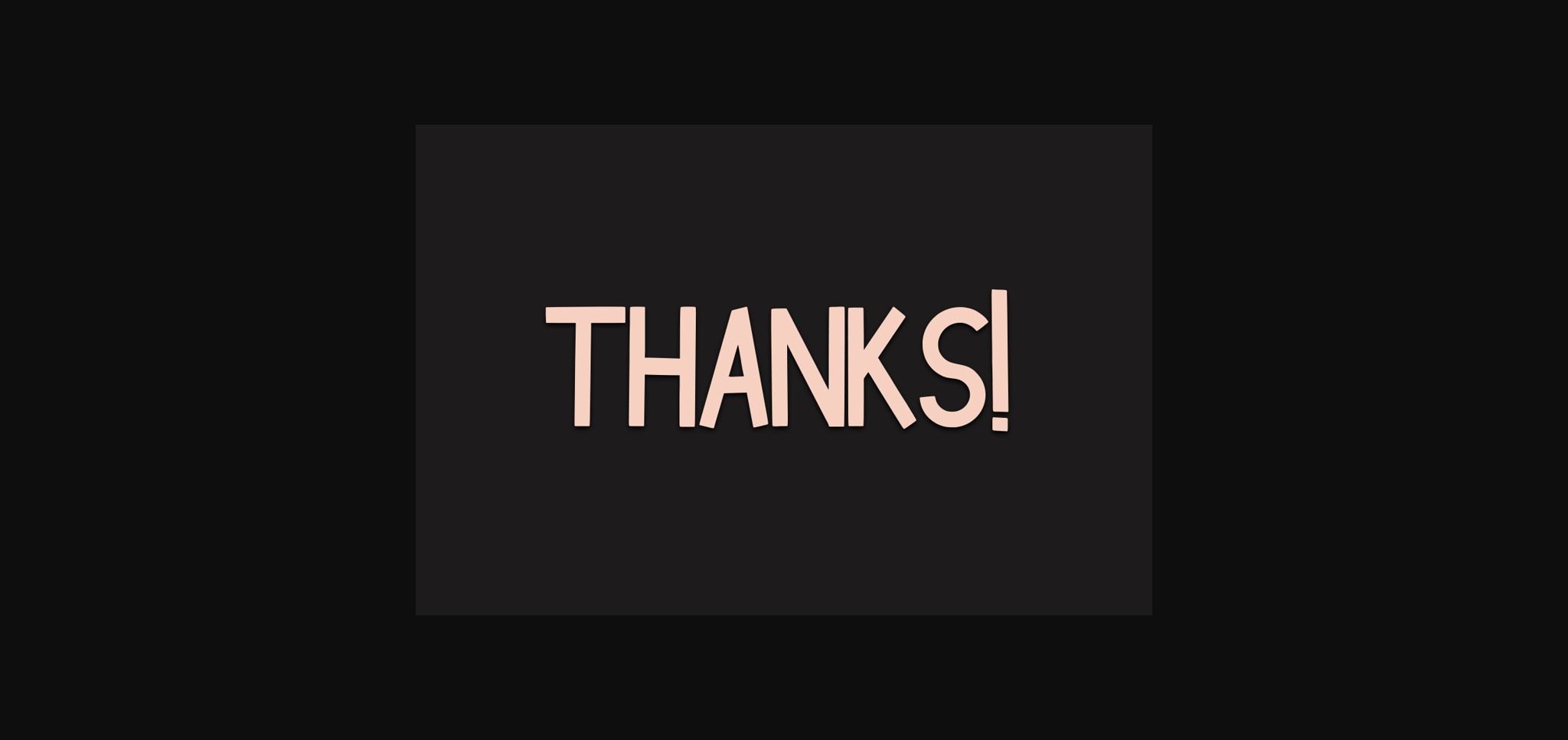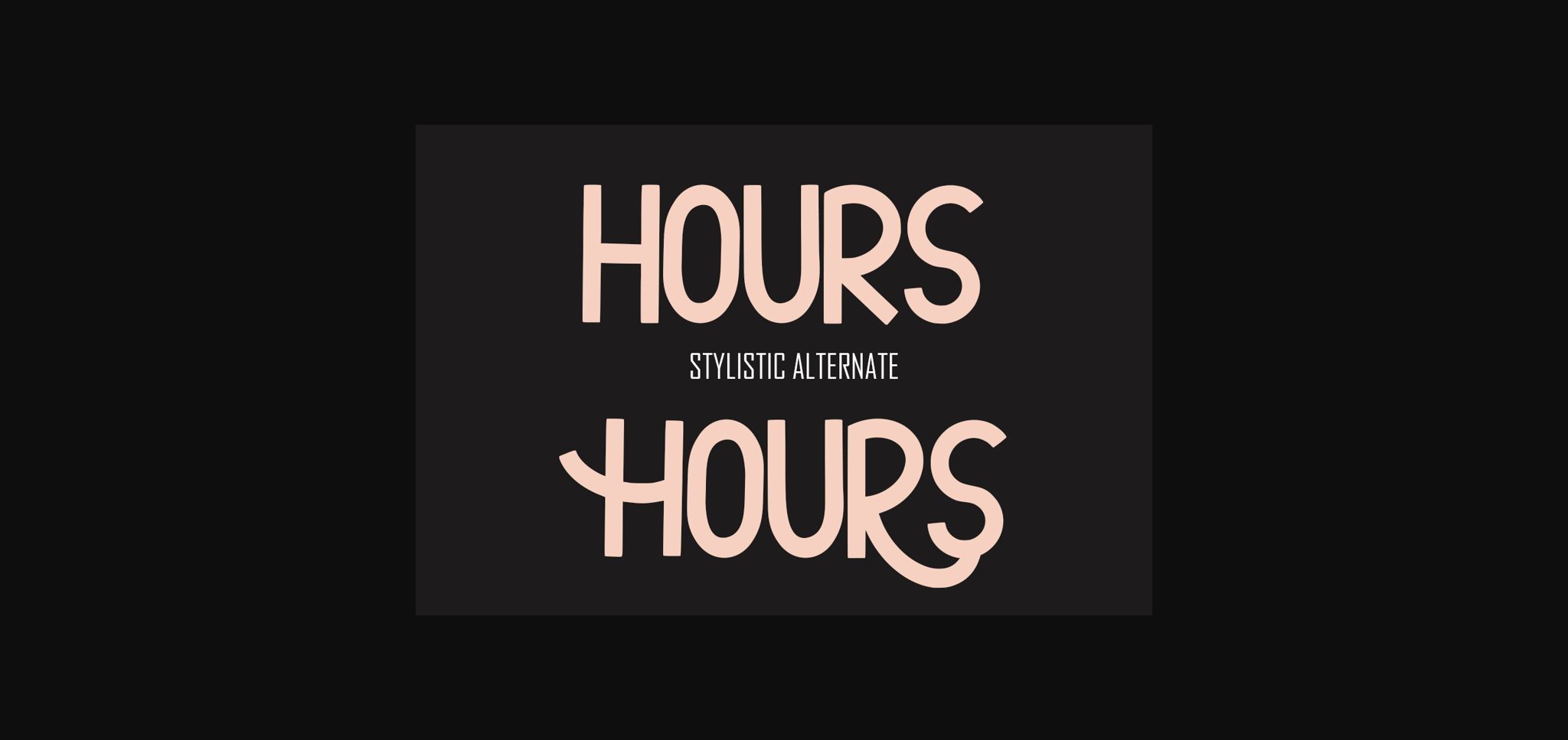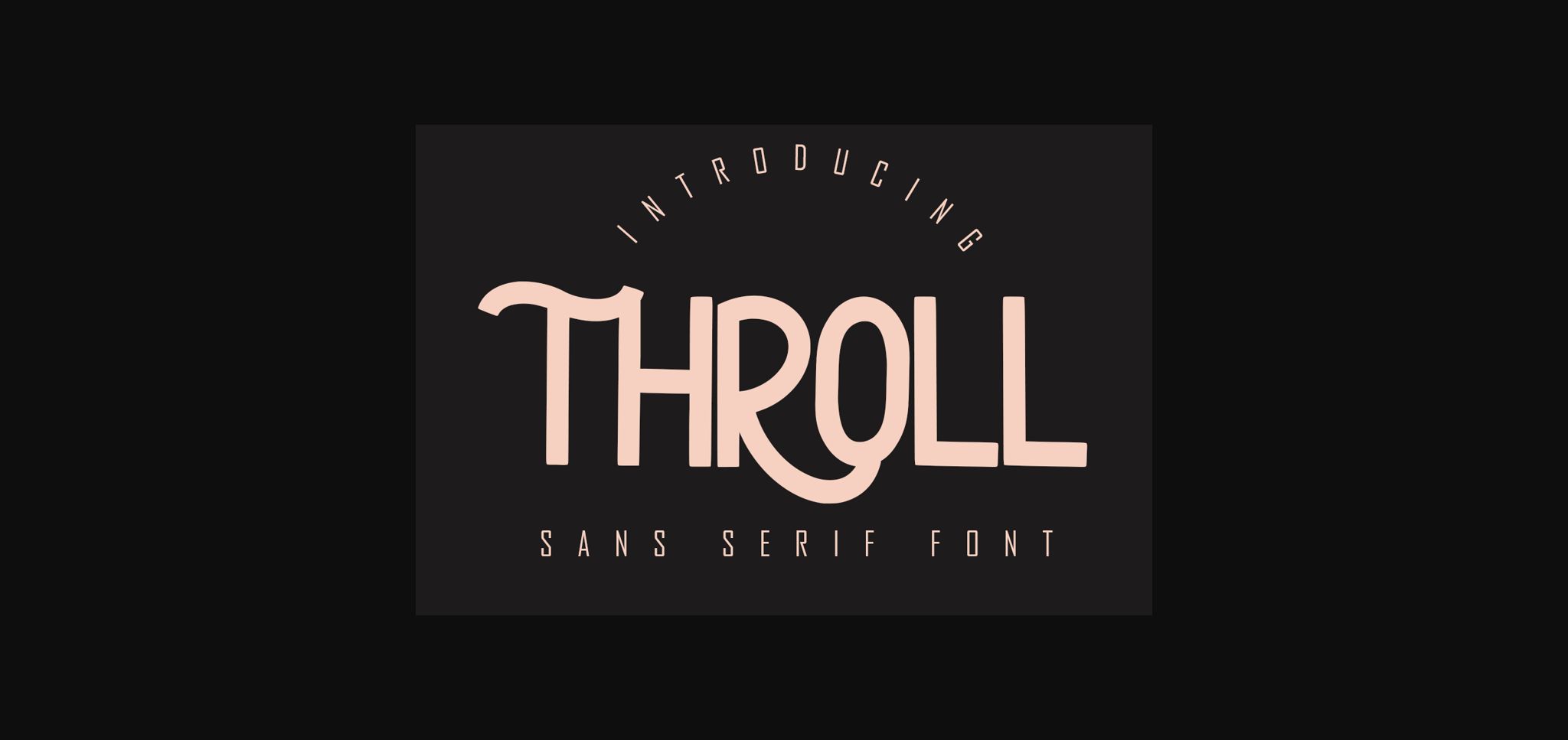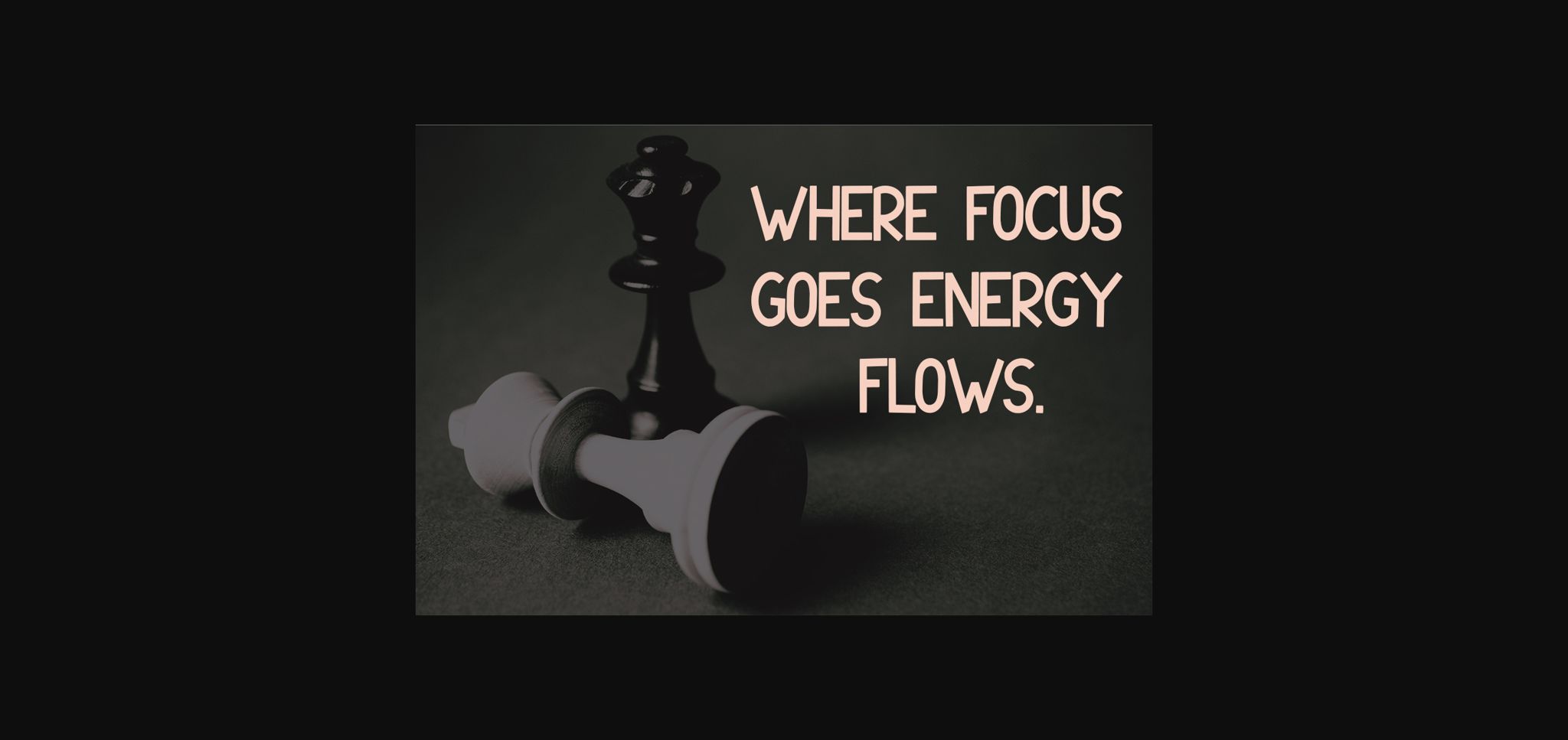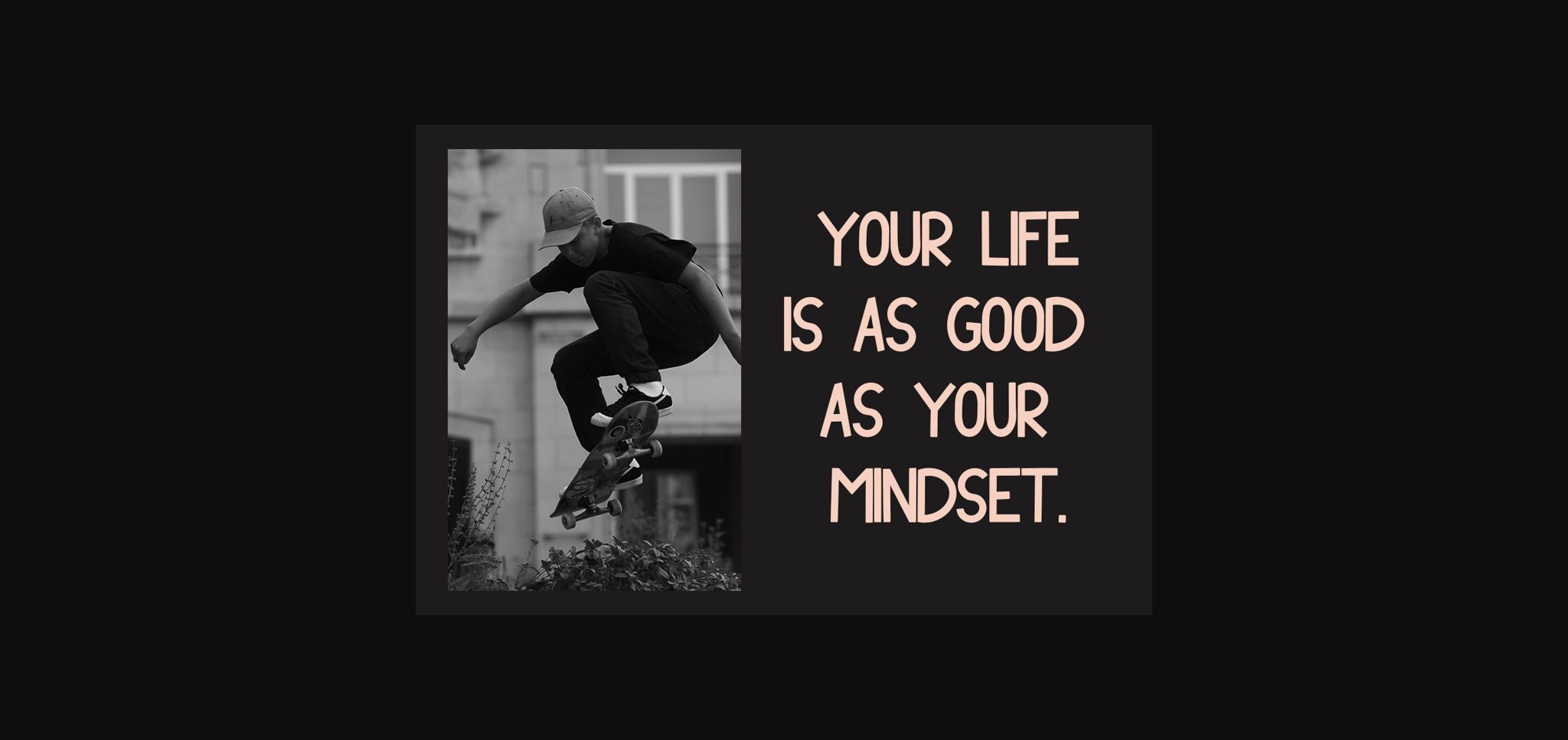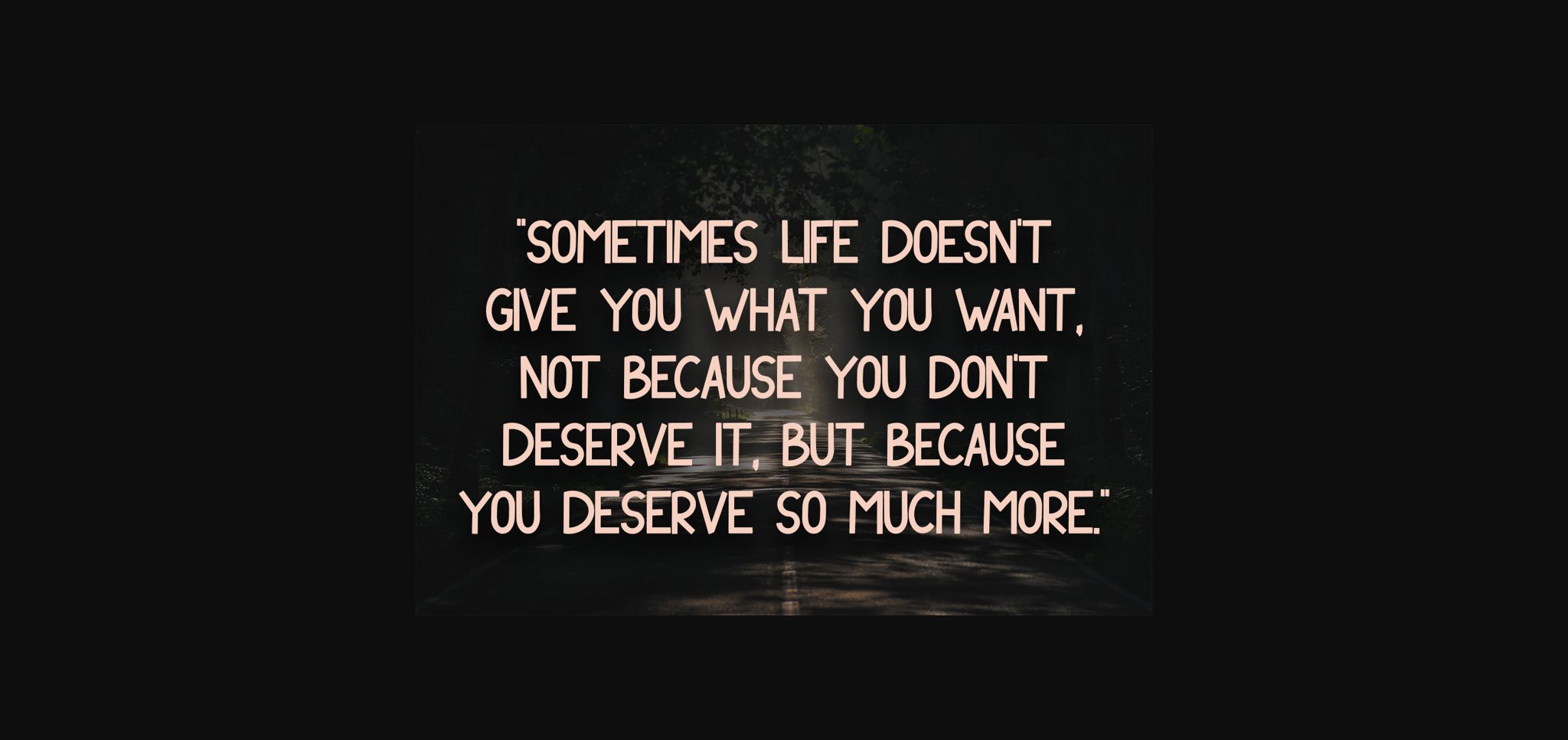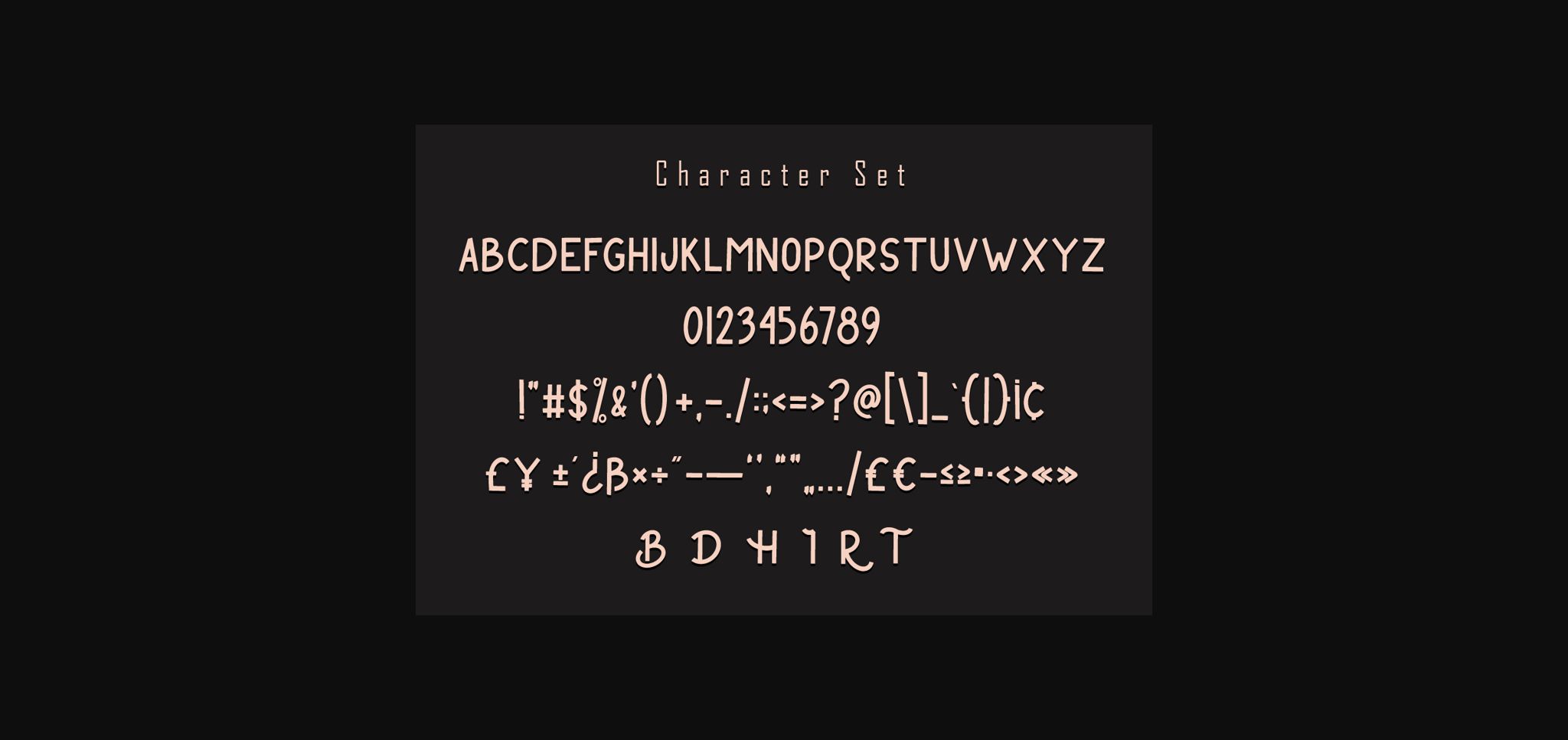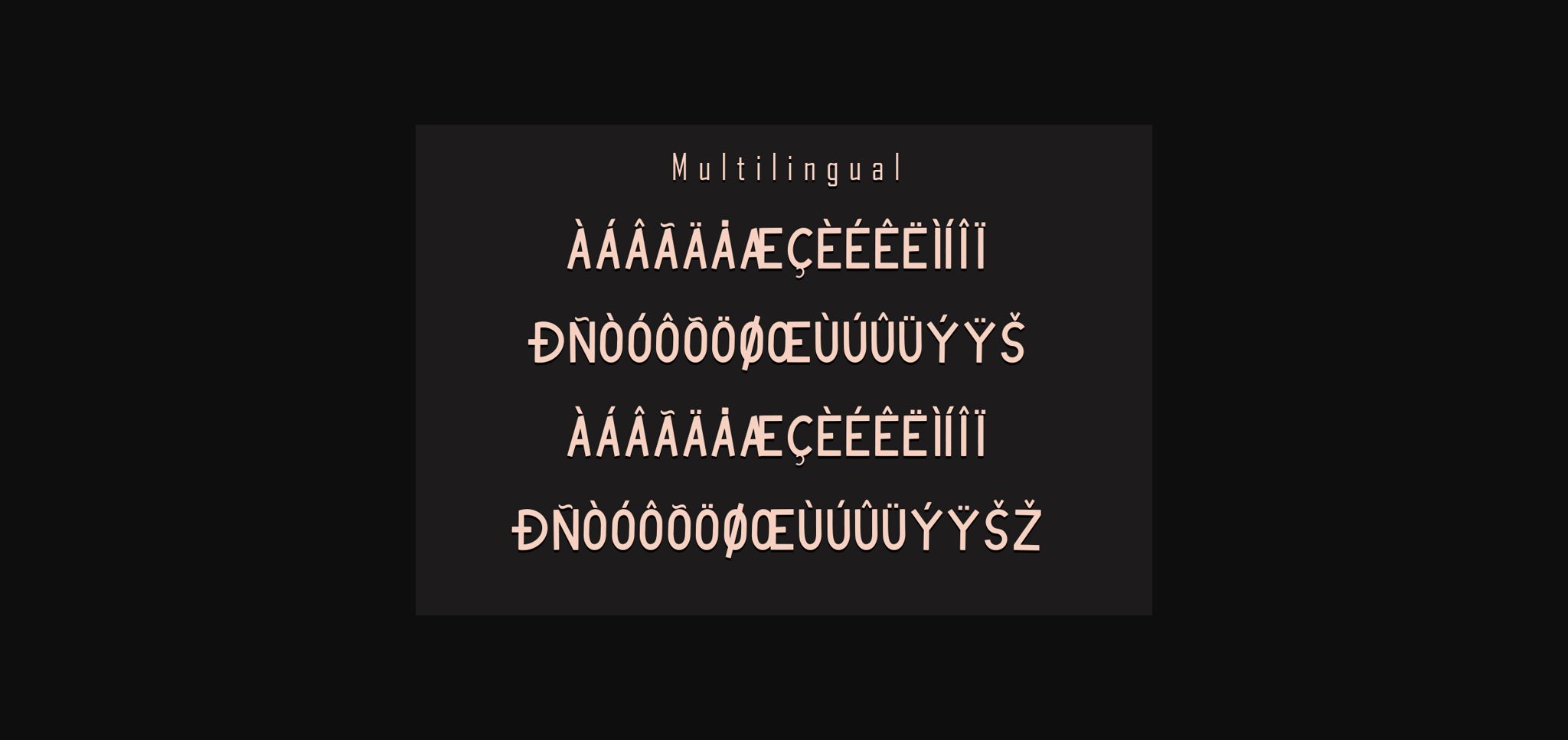
HomeSans Serif FontsThroll Font Sans Serif Fonts Throll Font FacebookXPinterestWhatsApp 1 of 10 ... Throll Font Poster 2... Throll Font Poster 3... Throll Font Poster 4... Throll Font Poster 5... Throll Font Poster 6... Throll Font Poster 7... Throll Font Poster 8... Throll Font Poster 9... Throll Font Poster 10... About Throll Font Throll is a modern and assertive sans serif font. Fall in love with its incredibly versatile style and use it to create spectacular designs! DOWNLOAD NOW People also explored Black Stanky Font Algosh Smooter Font Flower Dream Font Otivia Font Marybeth Font Rockselt Font Hikerstone Family Font Xmas Star Font Hello Rainbow Font 299 0 TagsThrollThroll Font Previous articleAlterm FontNext articleHeroes Font LEAVE A REPLY Cancel reply Comment: Please enter your comment! Name:* Please enter your name here Email:* You have entered an incorrect email address! Please enter your email address here Website: Save my name, email, and website in this browser for the next time I comment. Personal Use Free Lovetle Personal Use Free Read more about this font Black Personal Use Free Read more about this font Sehat Selalu Personal Use Free Read more about this font Santhony Personal Use Free Read more about this font BLOG How to Cut Any Font on Cricut: Convert a Font to SVG (Free) Turn any font into a clean SVG so it cuts crisp on Cricut - a quick 3-step workflow using a free font-to-SVG tool. Best Fonts for YouTube Videos: Make Your Thumbnails Stand Out Fonts That Capture the Spirit of New York City Using Fonts in Digital Marketing: Tips to Strengthen Your Brand Identity